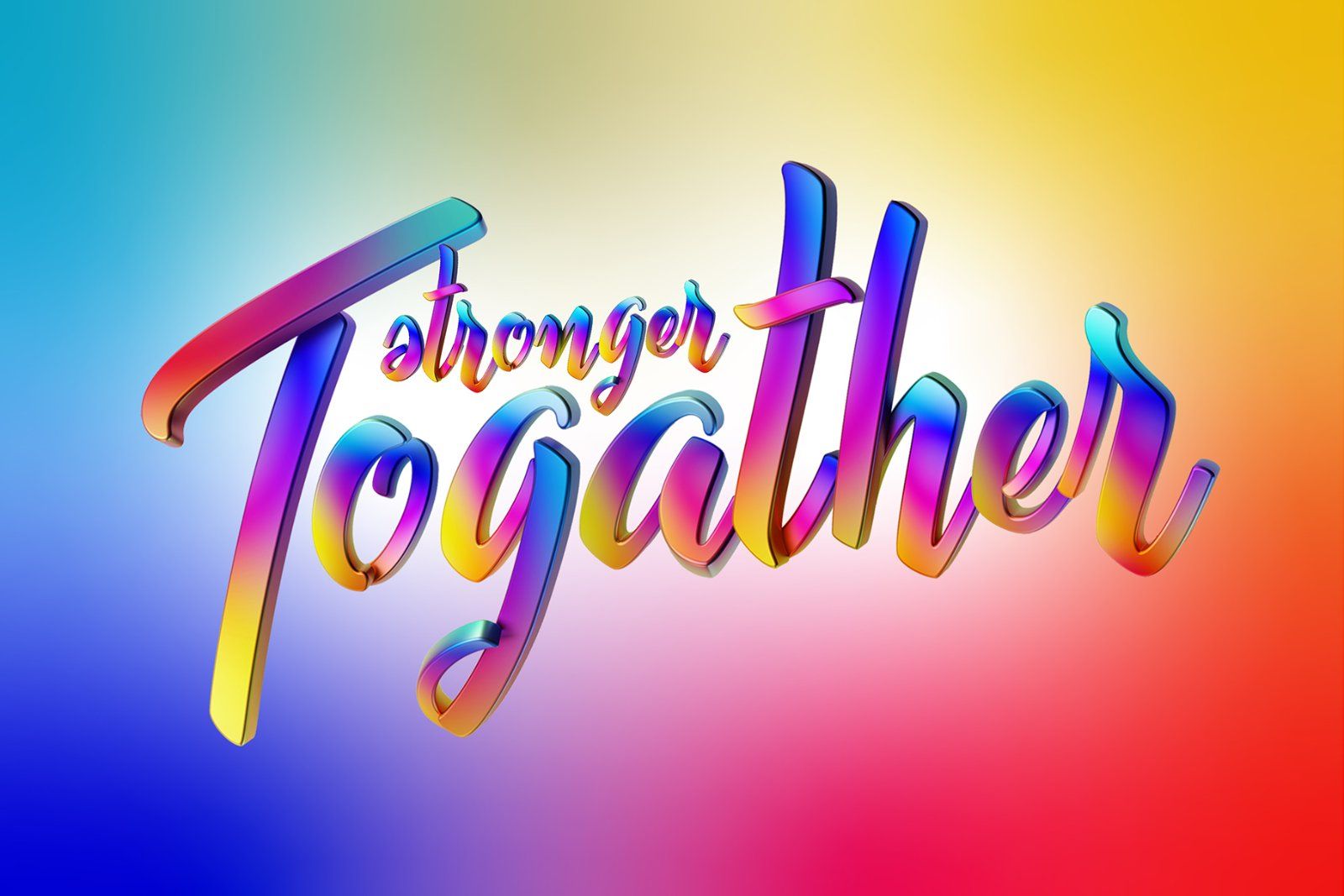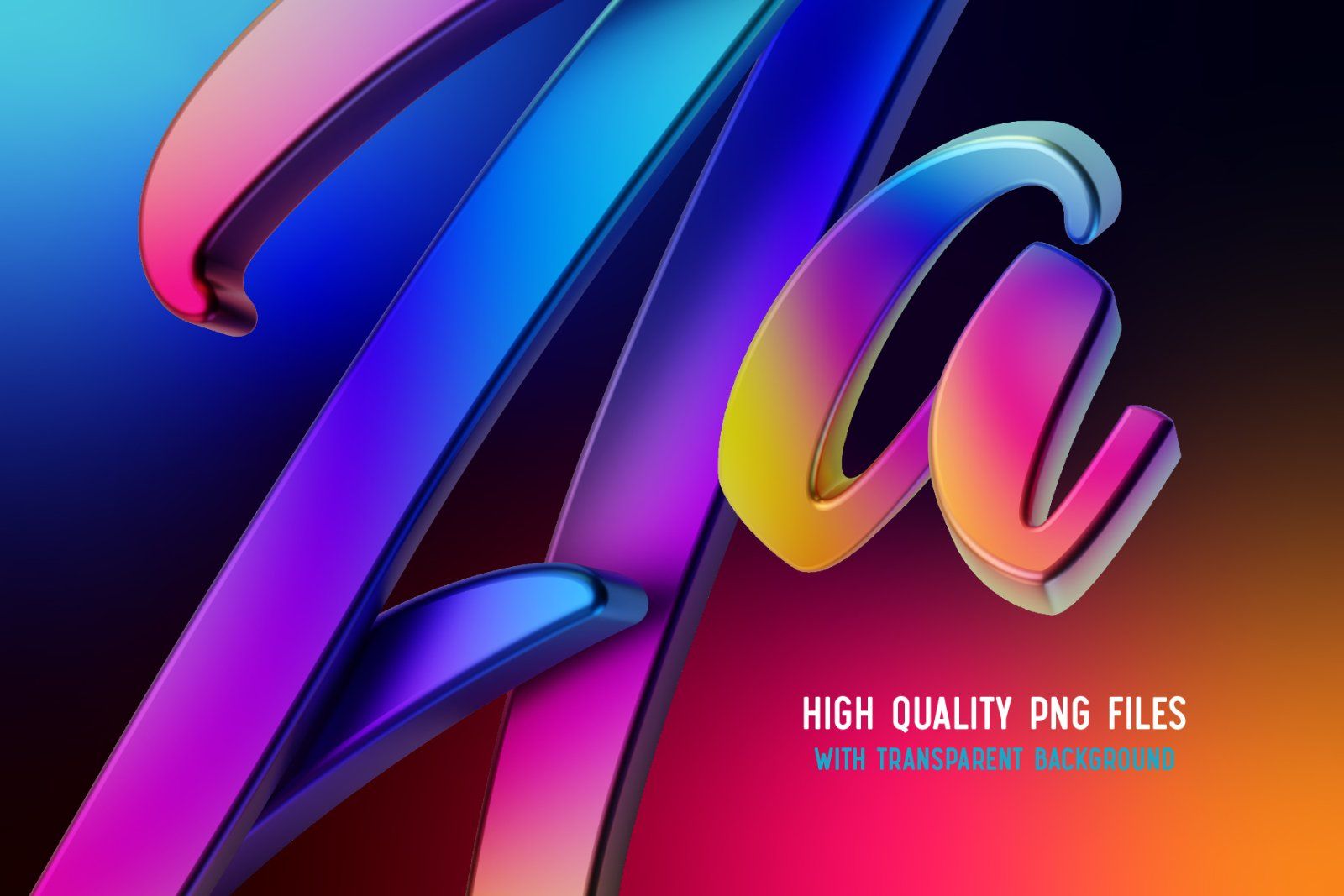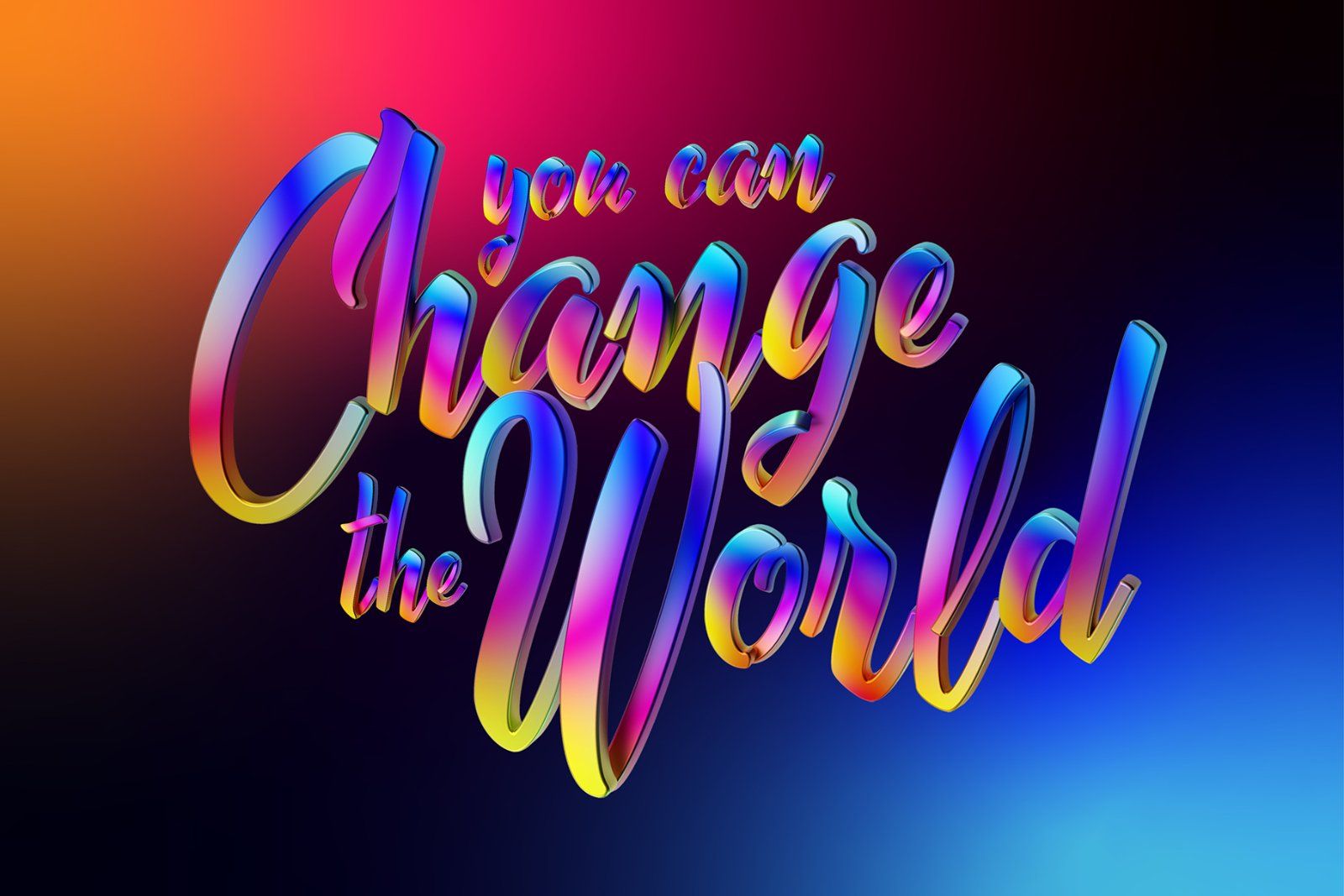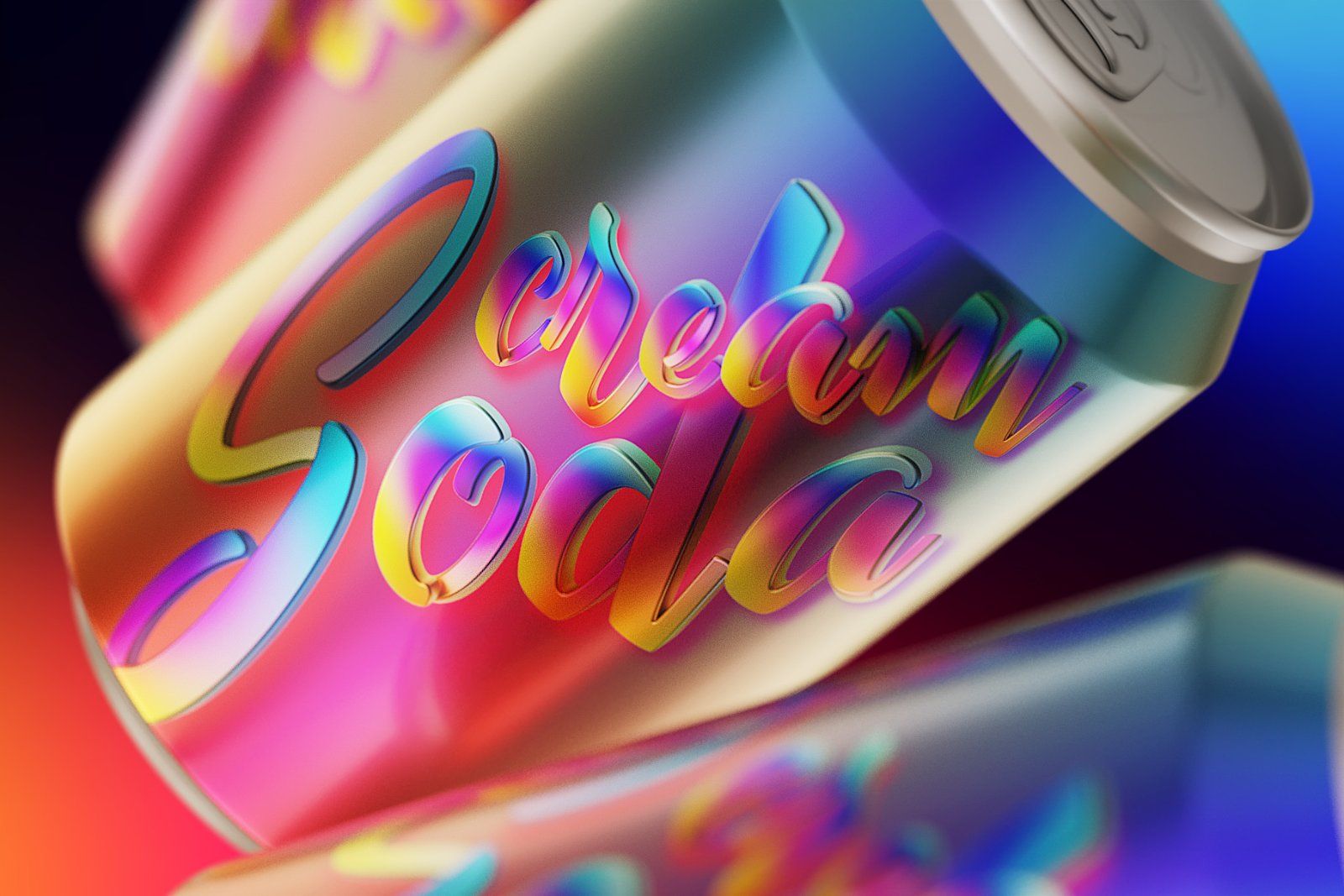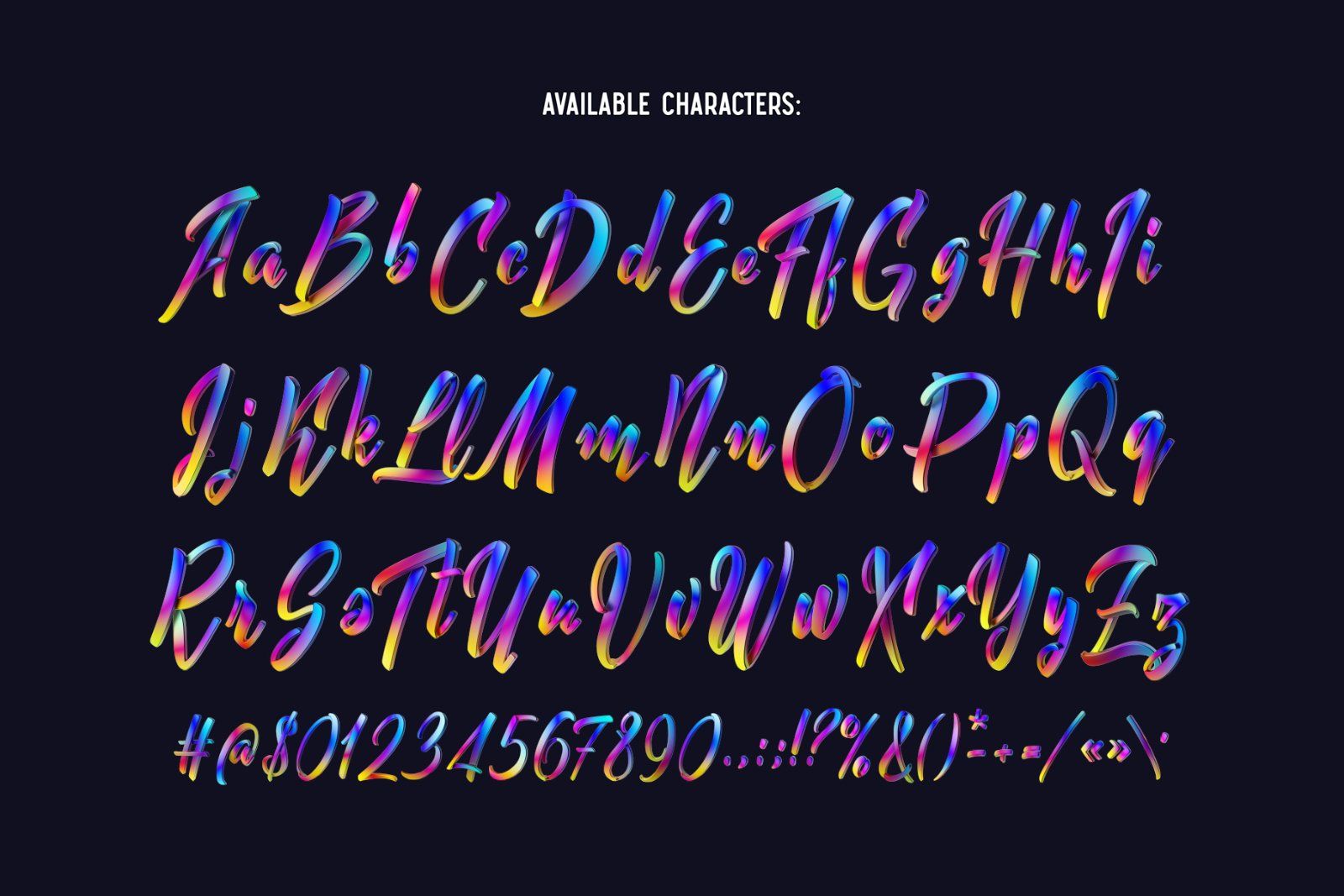
Hello! Presenting a colorful font set Diversity. It's a 3d rendered high quality typeface based on a smooth calligraphic script. First of all it's a color bitmap OpenType-SVG font that can be used as a usual OTF font. Also a set of full resolution PNG files with transparent background is included.
P.S: Only English language and basic punctuation is supported, please check out the screenshot with all available characters.